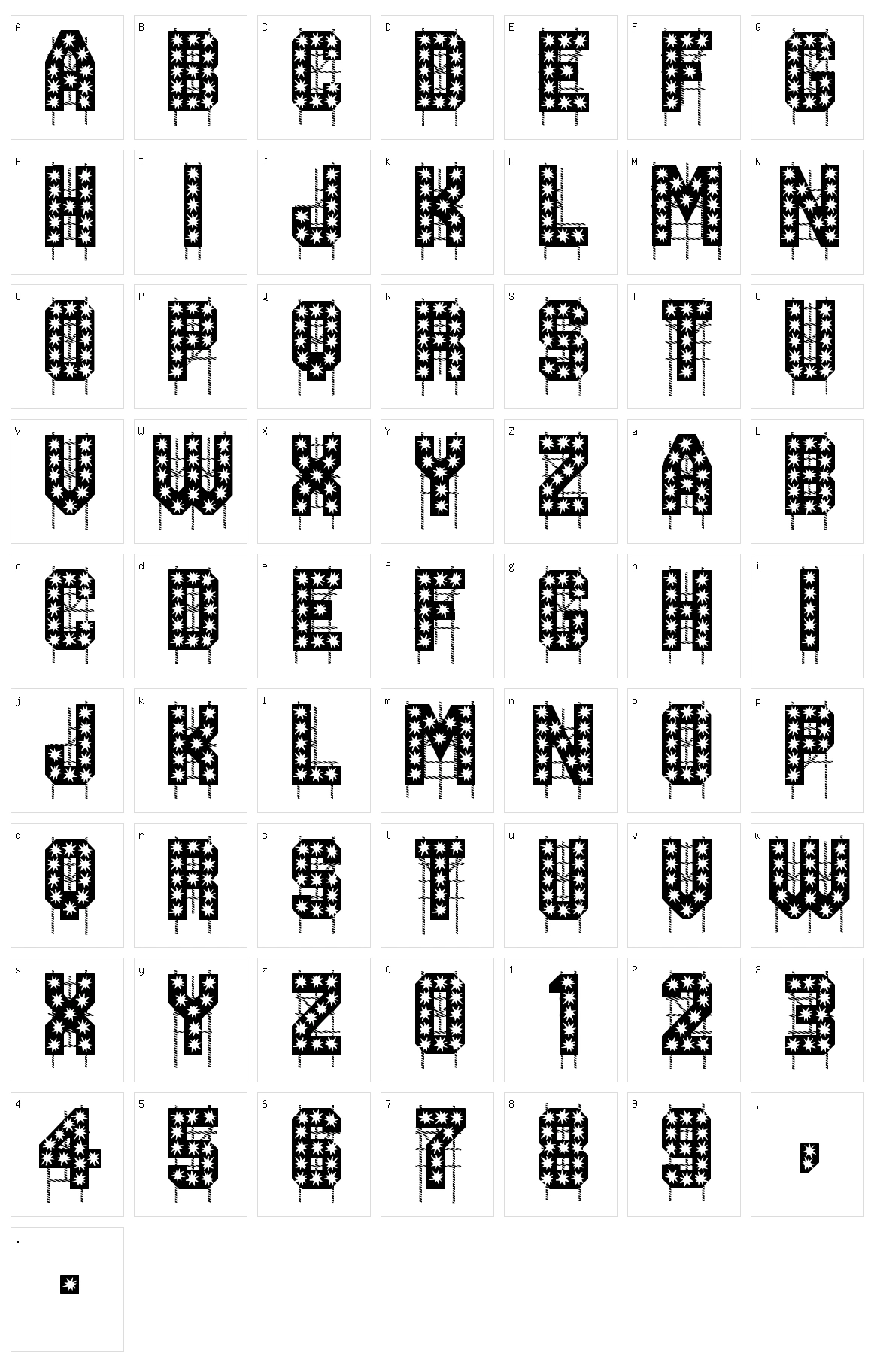
The free font On The Tops Lights is carefully designed by imagex, showcasing a thoughtful balance of creativity and usability and falls under the Decorative font style. When you download the ZIP file, it contains only 53.99 KB of font files, making it lightweight and quick to download. Please review the license details below to understand permitted usage and distribution rights. If license information is not available, we recommend using this font for personal projects only or contacting the author directly for commercial usage permissions.